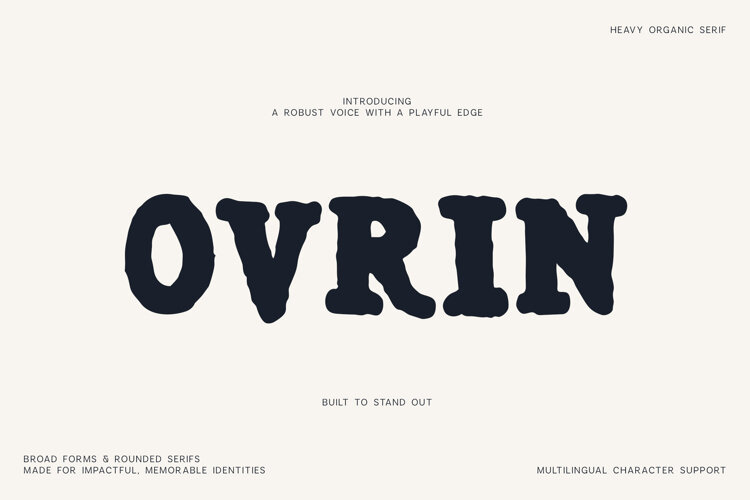
Make your typography impossible to ignore with Ovrin, a bold handmade serif font built around chunky forms, organic edges and confident personality.
Ovrin has the strength of a heavy display typeface while keeping a softer, handcrafted feeling through rounded serifs and subtle irregularities.
It is especially effective for projects that need a strong focal point without looking overly clean or corporate.
Ovrin works beautifully for brands that want to feel bold, expressive, friendly and handcrafted.
Its thick letterforms are highly visible even at a glance, making it especially useful for memorable logos and statement typography.